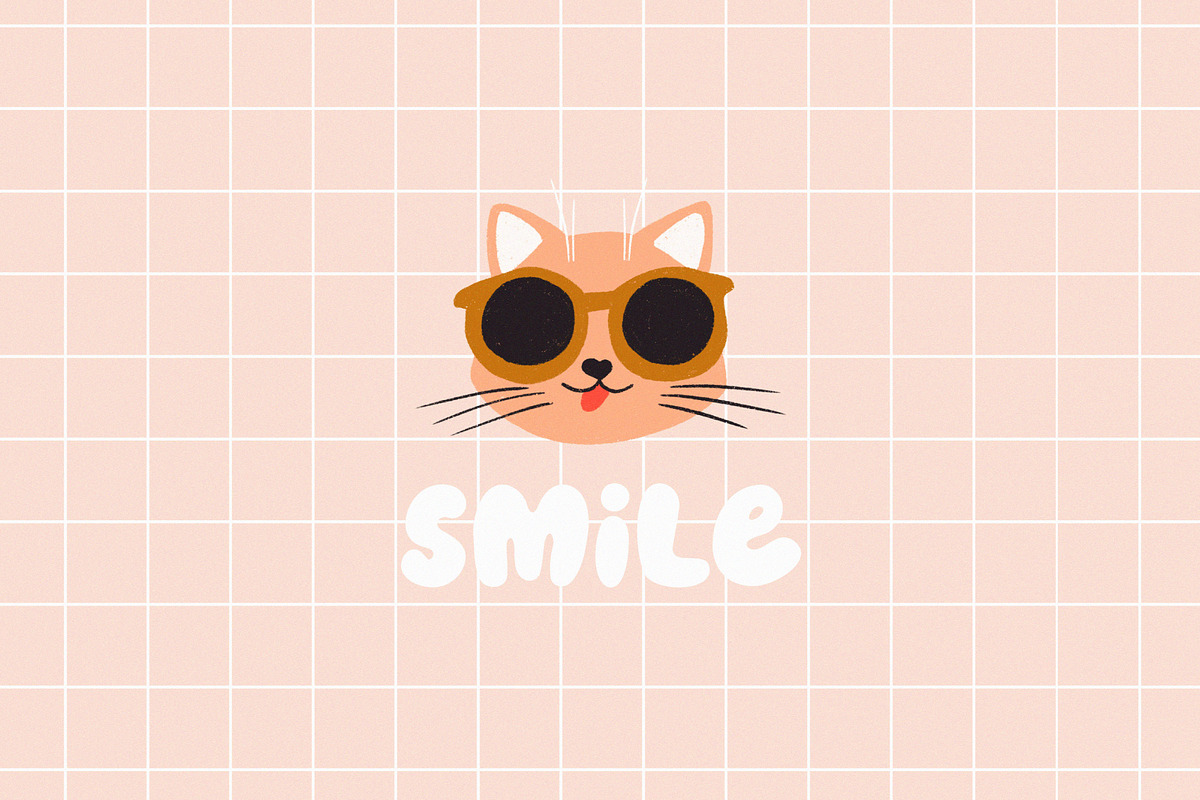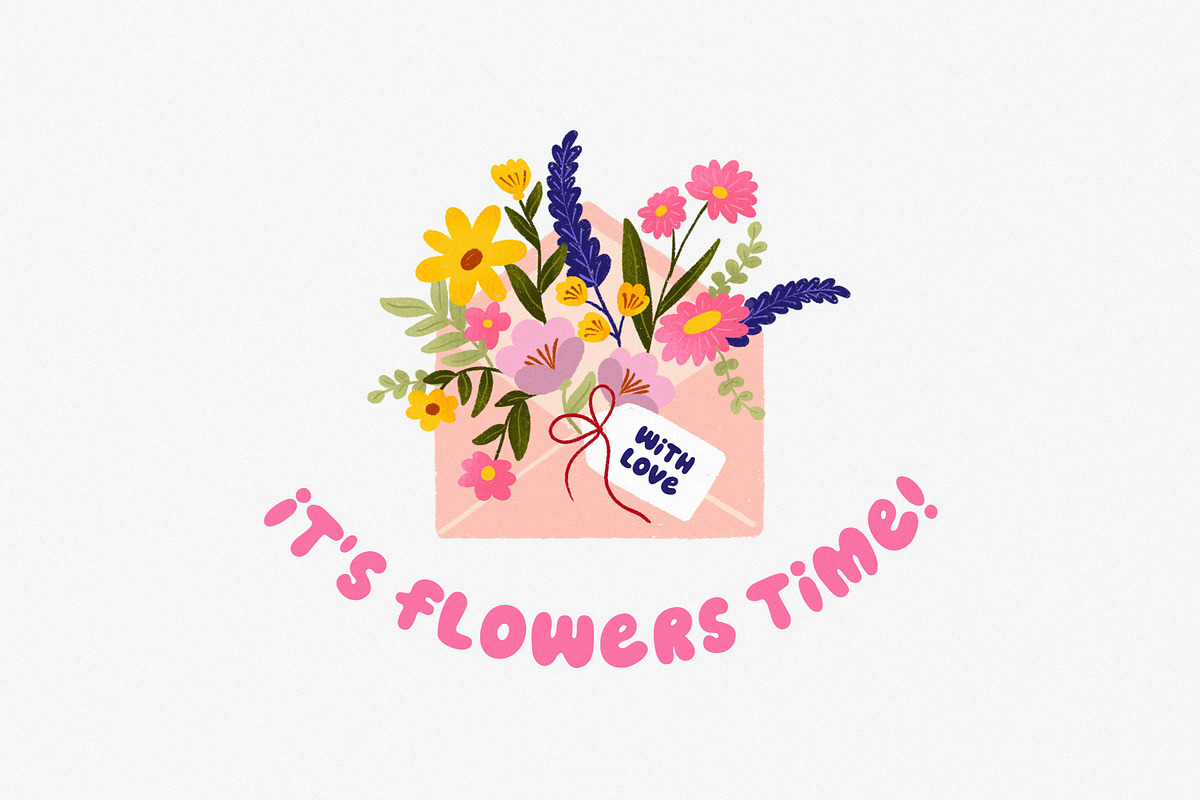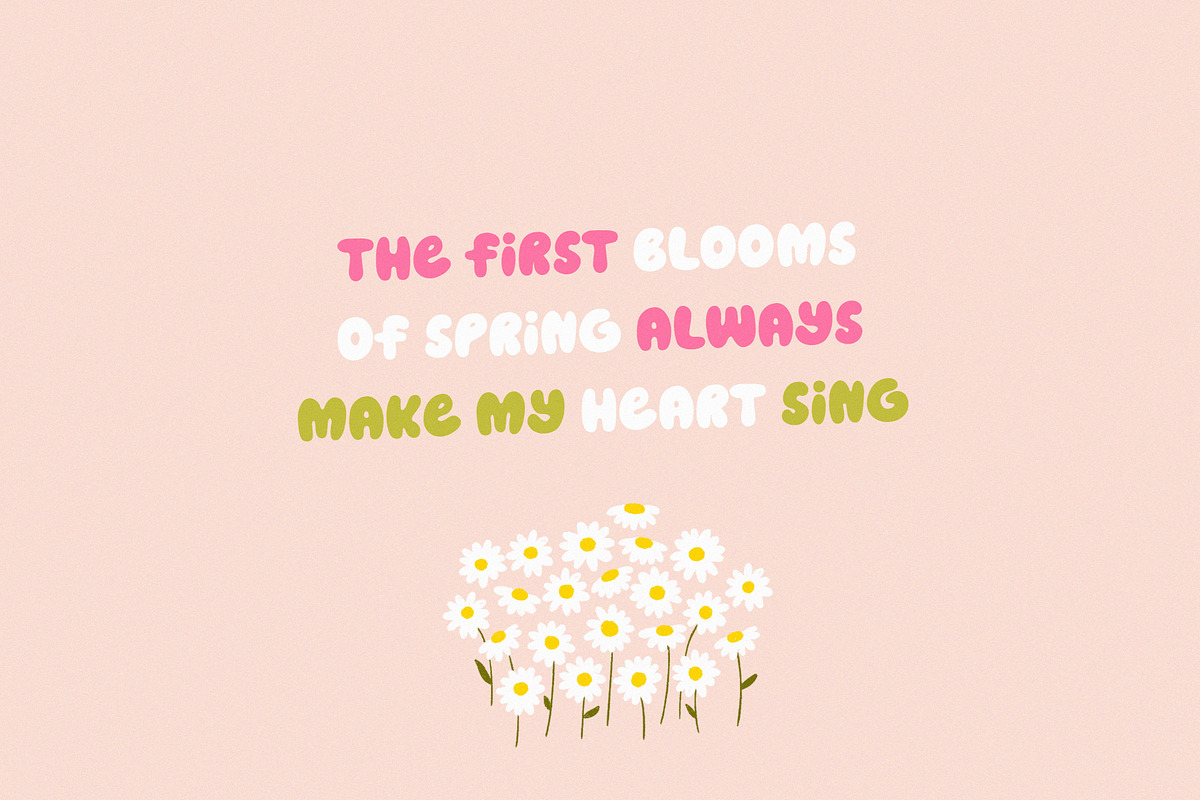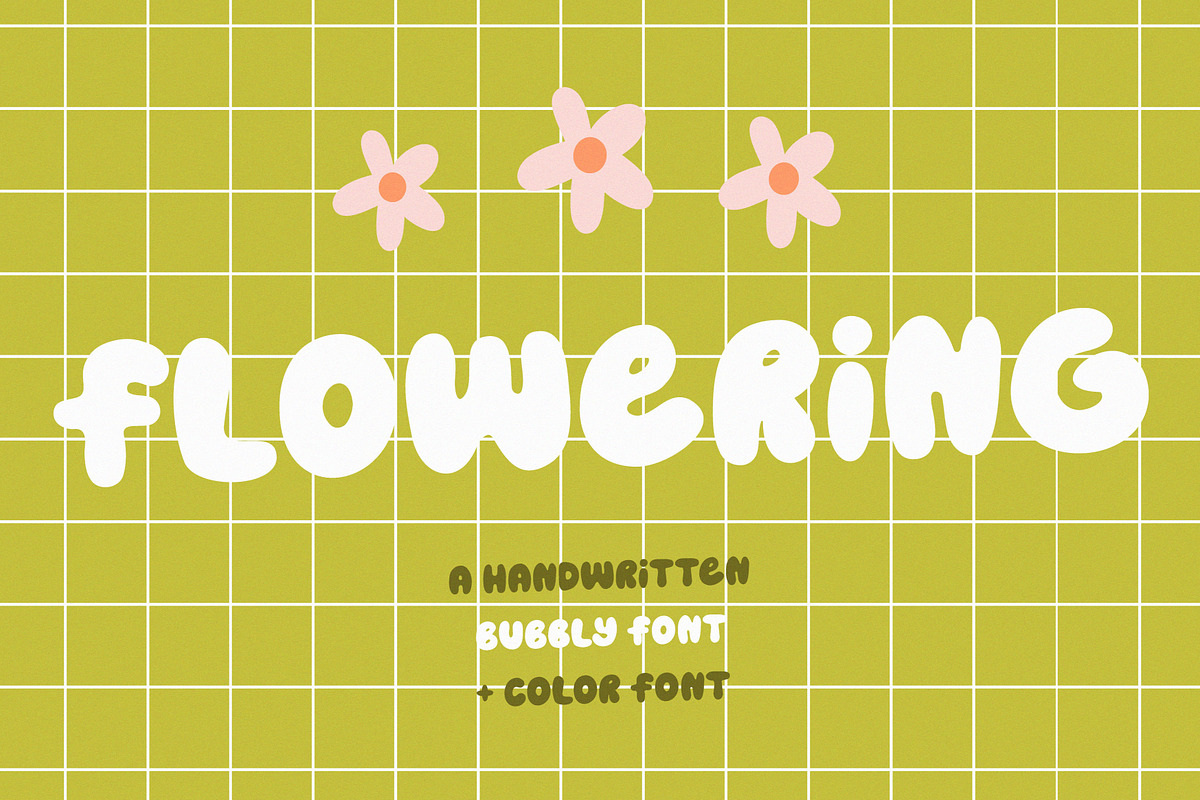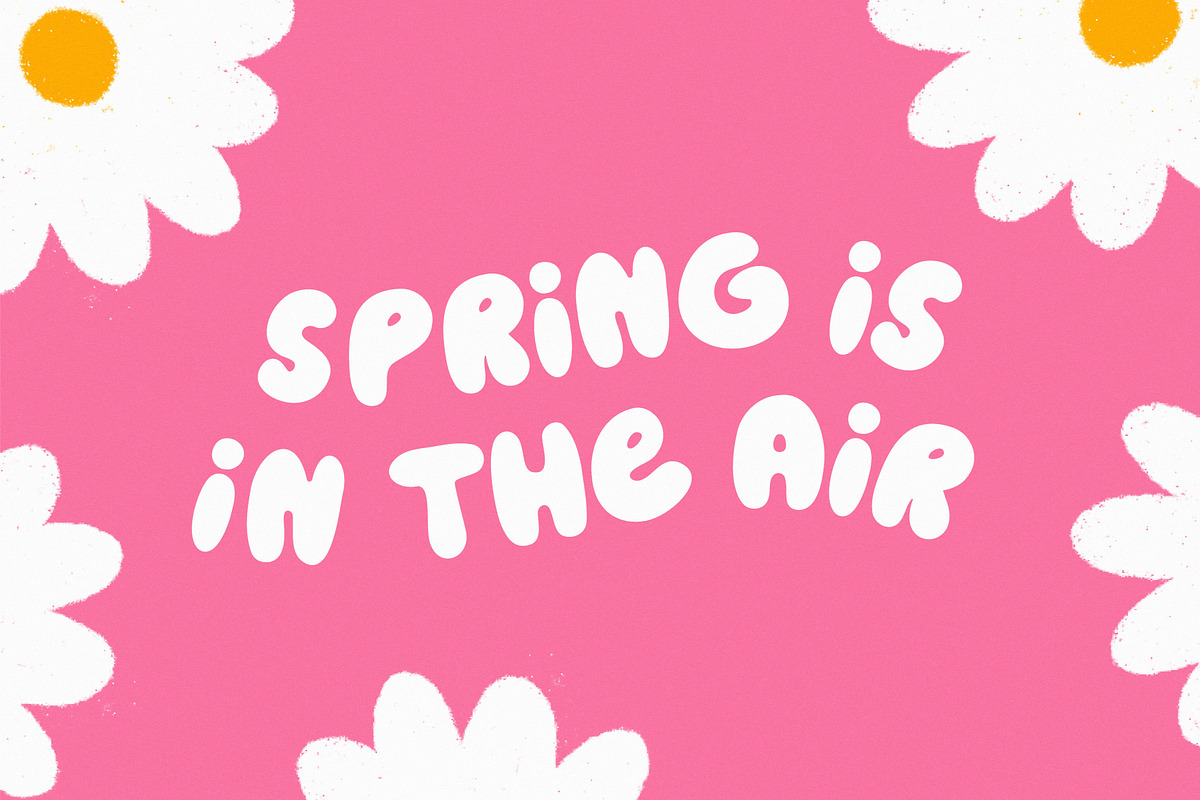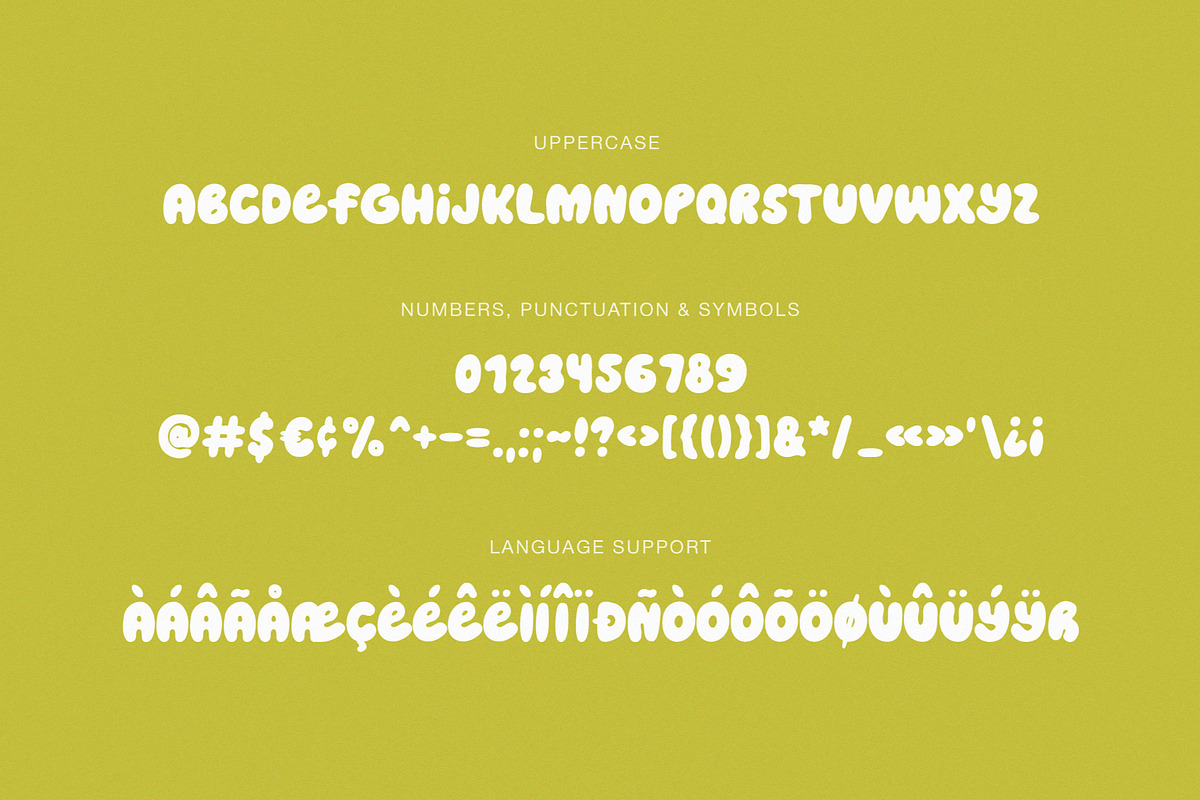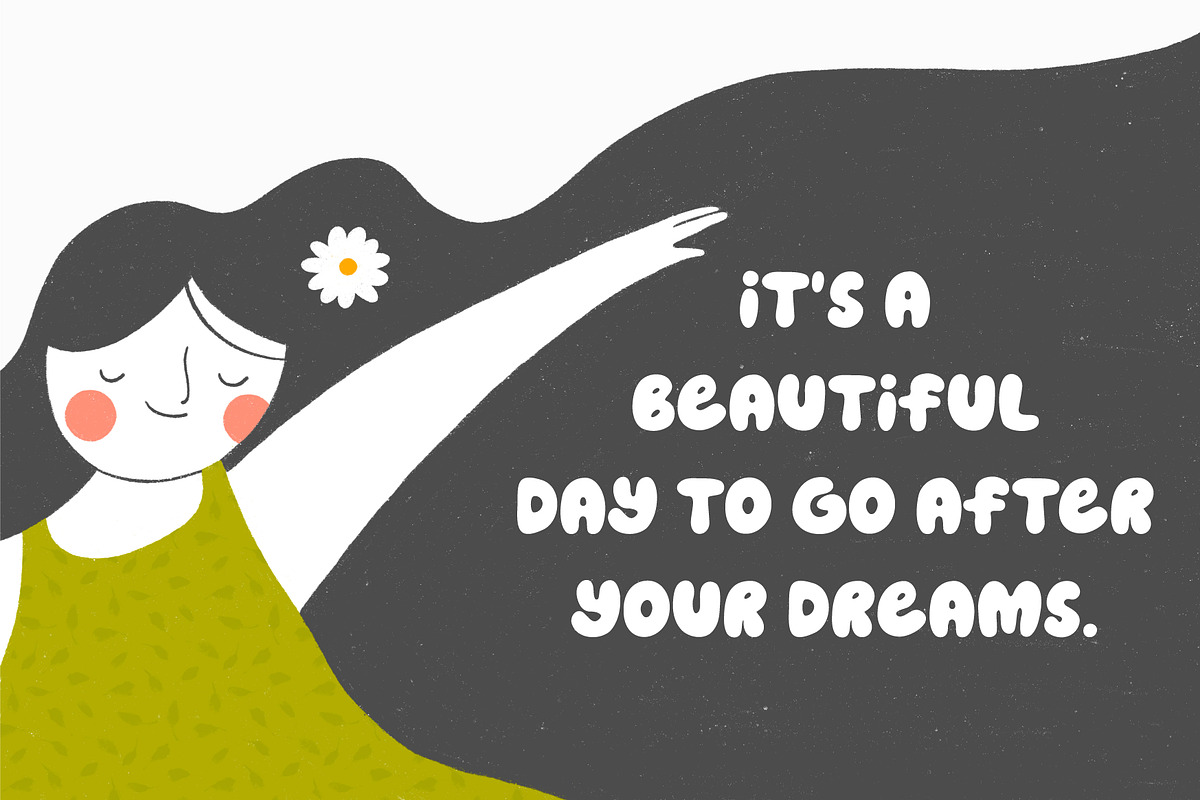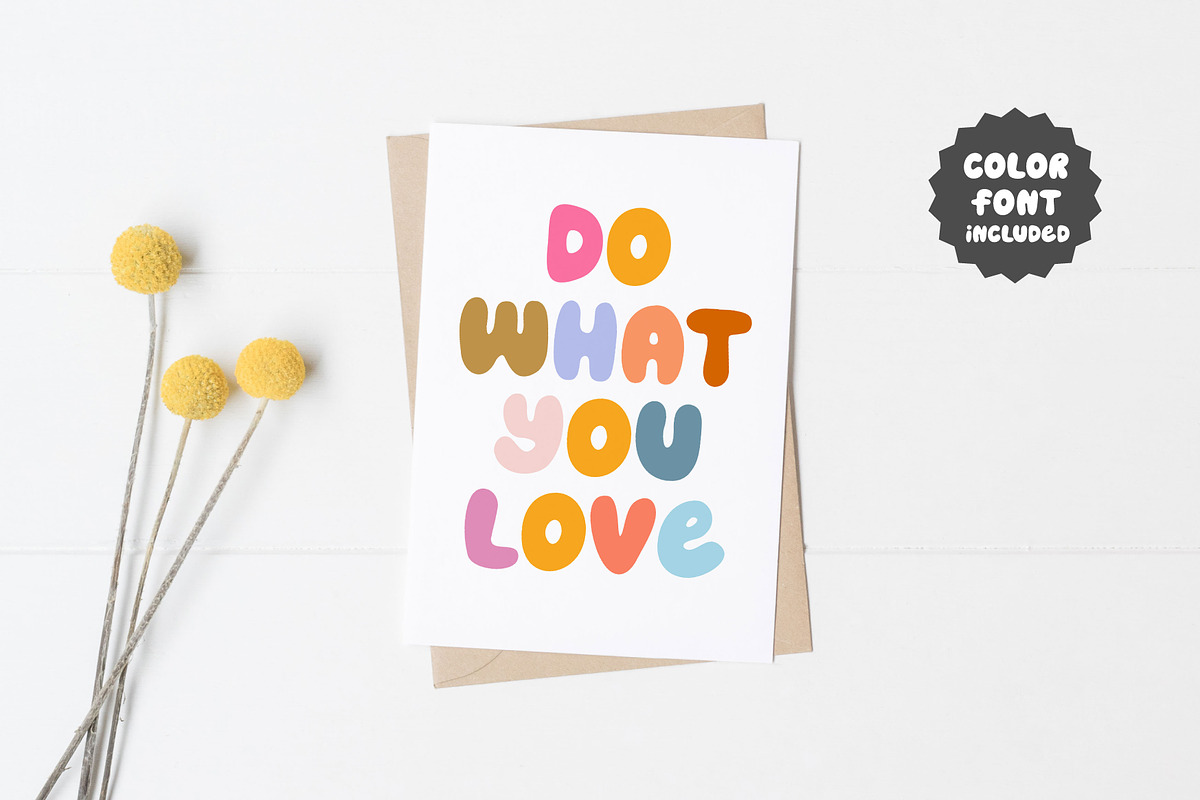
Flowering | Bubbly font
Flowering - handwritten bubbly font. Perfect for quotes, greeting cards, invitations, posters, business cards, presentations and more.